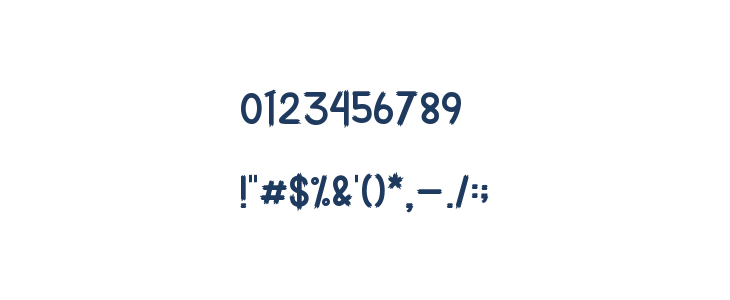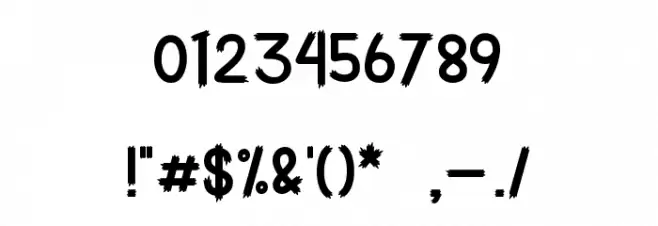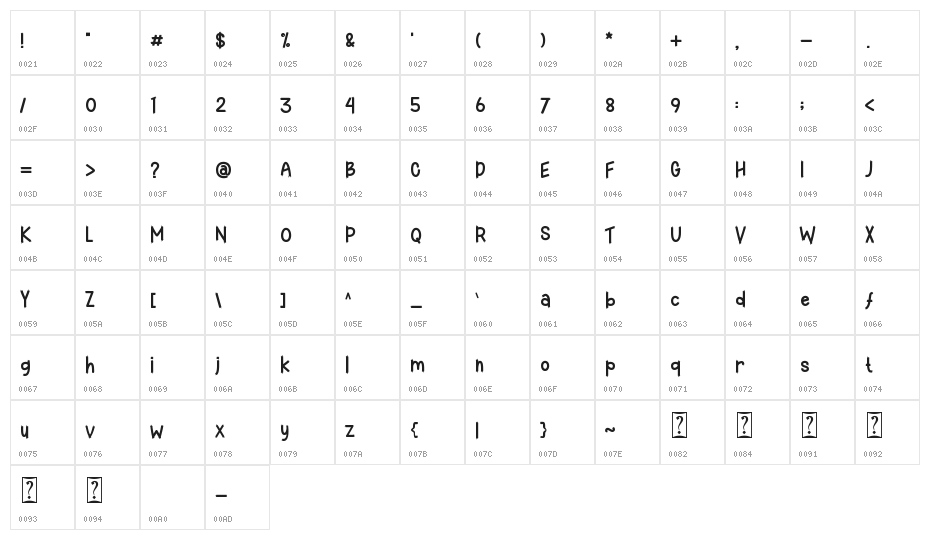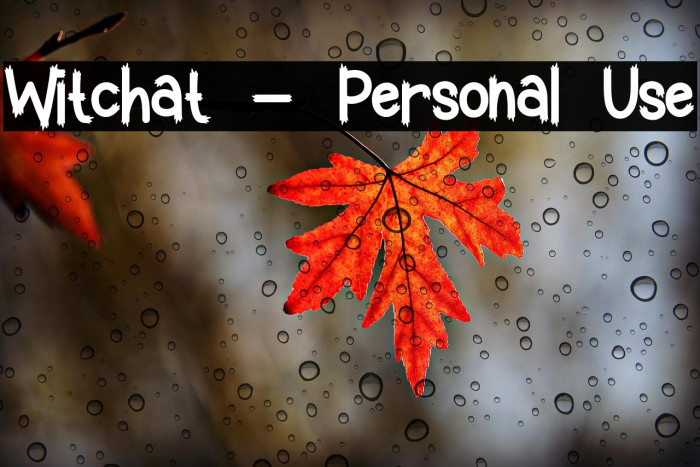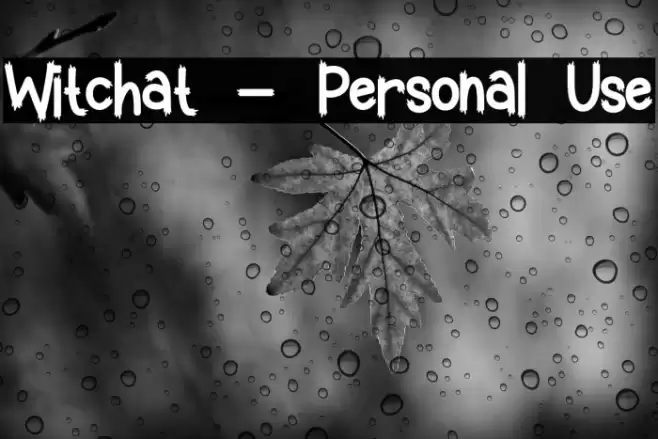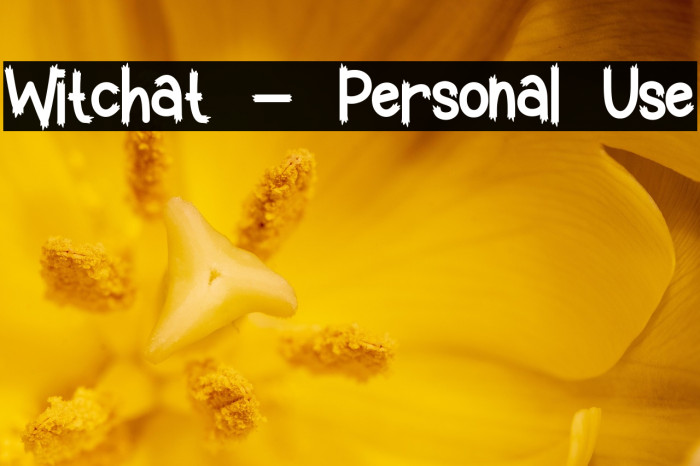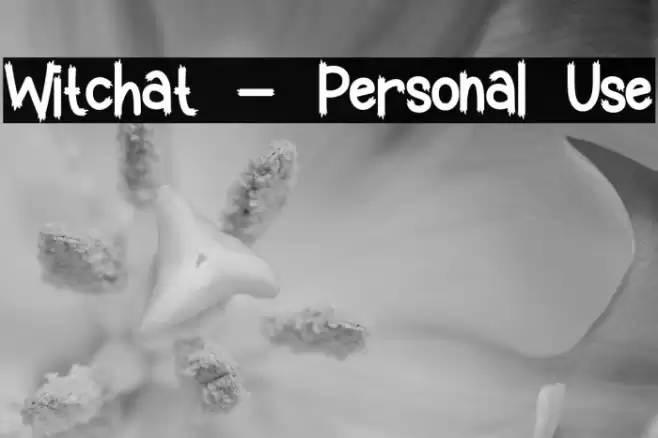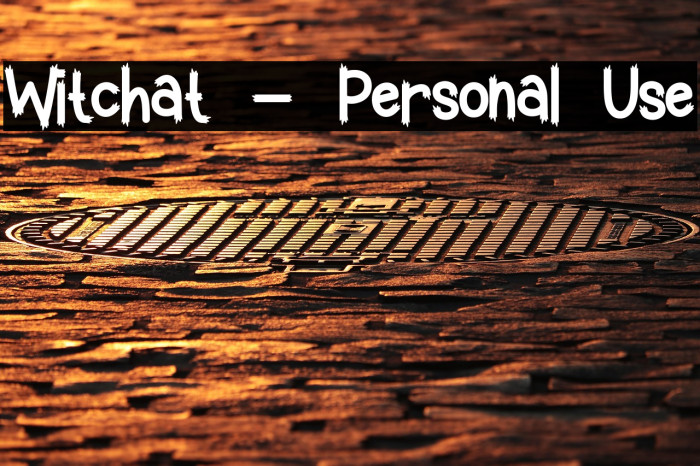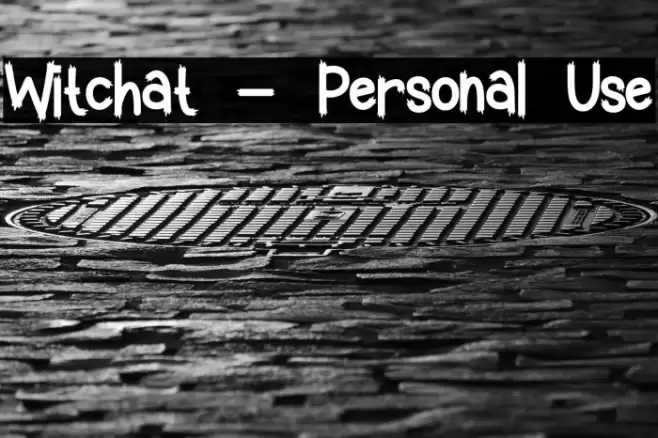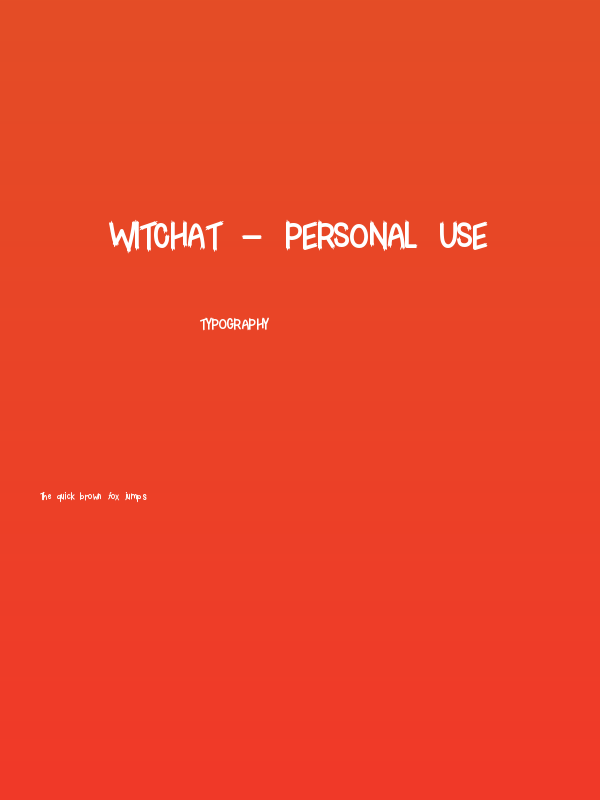
Witchat - Personal Use Font
Witchat - Personal Use Description
This font features a playful and spooky aesthetic, characterized by jagged edges and irregular strokes that give it a hand-drawn appearance. The uppercase and lowercase letters maintain a consistent style, with each character exhibiting a slightly distressed look, reminiscent of Halloween or horror-themed designs. The numerals and special characters follow the same design principles, ensuring a cohesive appearance across all glyphs. This font's unique style makes it ideal for creative projects that require a touch of whimsy or eeriness.
| Proposed Projects | Ideal for Halloween-themed designs, party invitations, posters, and creative branding projects. |